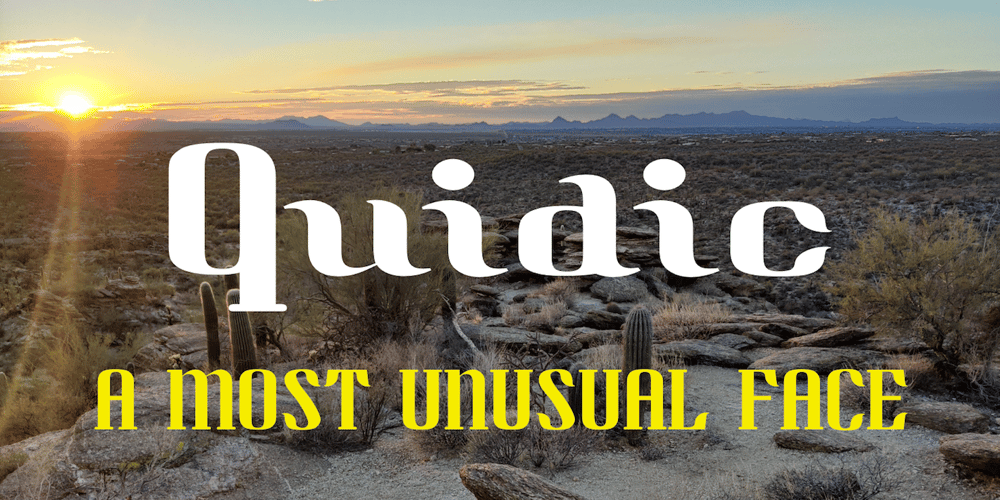
Quidic Font Family was designed by Robert Schenk and published by Ingrimayne Type. Quidic contains 6 styles and family package options. Quidic is an unusual display typeface. The upper-case letters are strongly vertical, condensed, and bold. Used by themselves, they make headlines and titles that stand out. The lower case letters do not have serifs similar to those on the upper-case letters, but rather have the serif shapes one expects from an italic style. The lower-case is also quite short compared to the upper-case letters. The italic styles of the family are unusual because the lower-case letters keep their shapes and the upper-case letters and numbers change. The family has three styles that differ more by width rather than by weight.Although some Bauhaus fonts have several letter shapes that are similar, there is no other typeface quite like Quidic. The family can be used for many things, but not for text. For a “normalized” version of this typeface, see Qwatick.